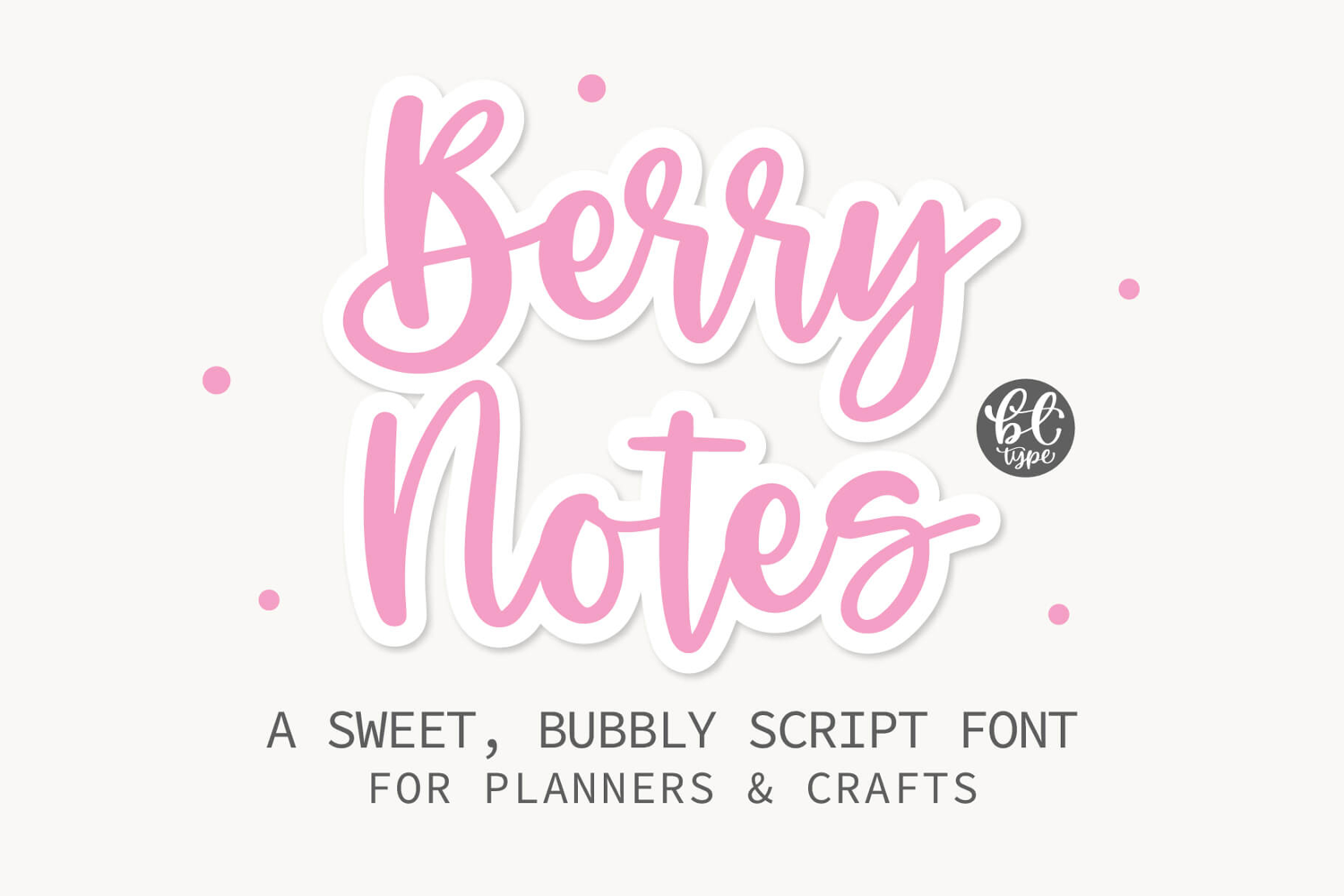
💚Berry Notes is a sweet, bubbly handwritten script font that brings charm and cuteness to every creative project! Whether you're planning, journaling, or designing stickers, this font adds that playful, personalized vibe you're looking for.
💚 Berry Notes is not just a font—it’s a vibe. Perfect for relaxed weekend planning, cozy journaling sessions, and creating calm, feel-good designs that make your projects shine with soft energy and style.
💚 Font Features:
- Handwritten script style with a bubbly twist
- Clean, smooth lines for easy cutting